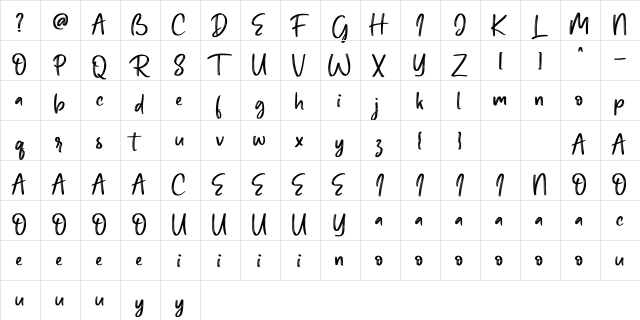
Barty Allen Regular
| Designer | Ana Natalia |
Design Context for Barty Allen Typeface
Barty Allen is a composed and adaptable typeface that performs quietly and consistently across a wide range of design contexts.